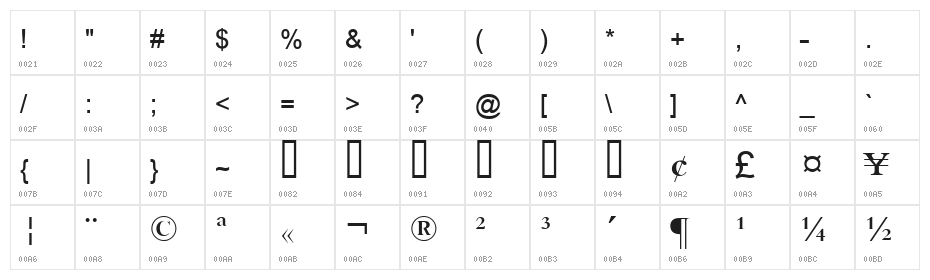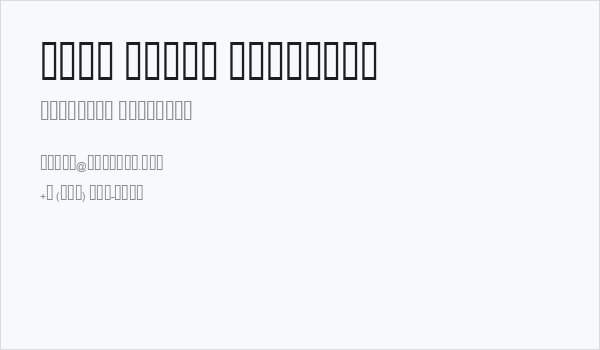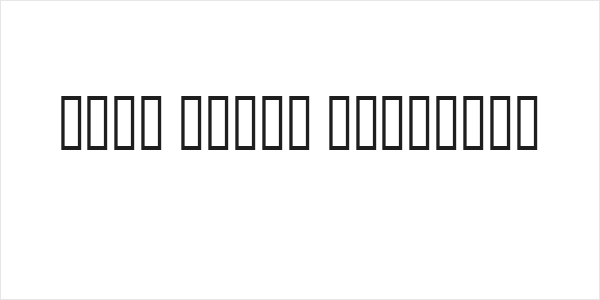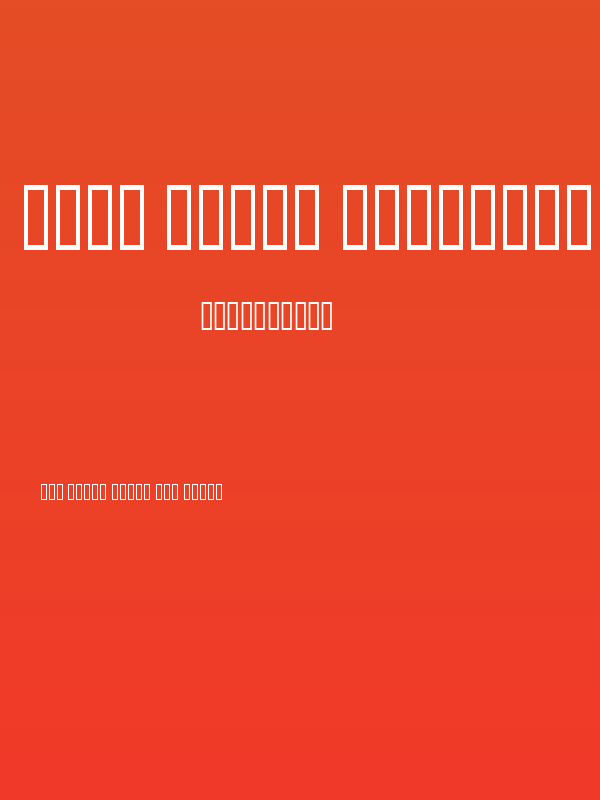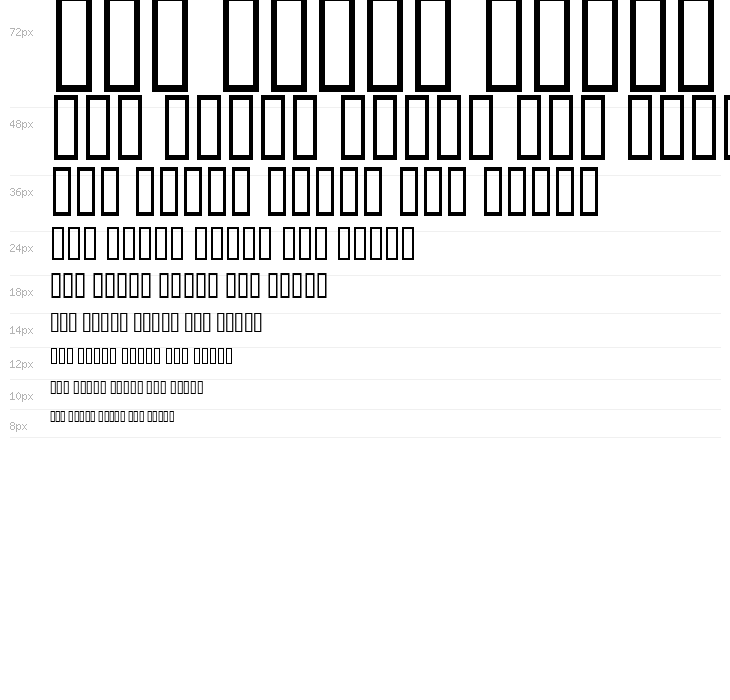
Urdu Naskh Asiatype Font
Urdu Naskh Asiatype Description
This font is designed in a traditional Naskh style, commonly used for Urdu script. It features elegant, flowing lines with a balanced structure, making it suitable for both formal and informal text. The characters are well-proportioned, with a slight slant that adds a touch of sophistication. The font maintains readability while incorporating artistic elements typical of Naskh calligraphy. It is ideal for digital and print media, offering a classic yet versatile appearance.
Overall StyleClassic
Use CaseBody text, Digital content, Print media
Proposed ProjectsIdeal for book publishing, educational materials, digital content, and formal invitations.